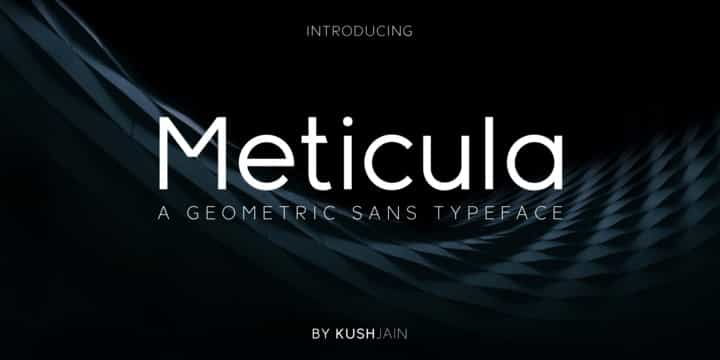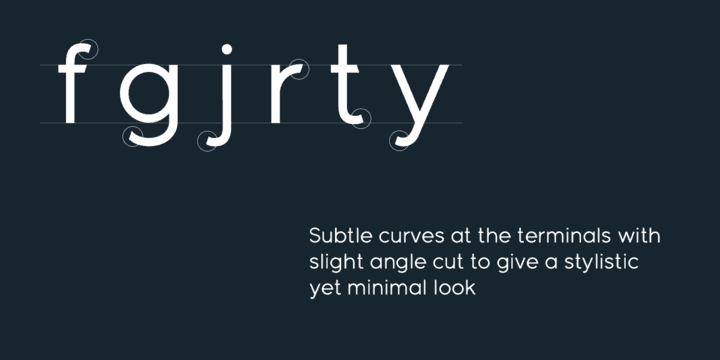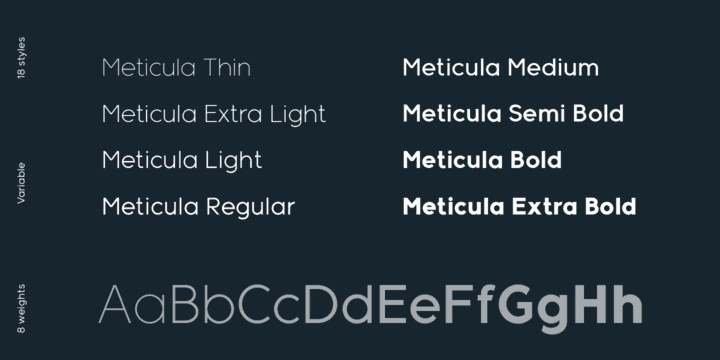
Discover Meticula Font Family, part of the Sans Serif collection—a versatile and unique font perfect for adding a personal touch to your projects. Download it for free and enjoy crafting designs with style, from invitations to social media posts. This font is available exclusively for personal use, giving you the freedom to create without limits. Unlock your creativity with Meticula Font Family today!
The sans serif font family has 18 fonts to choose from. If you are looking for the letters with lots of Ligatures and styles to choose from, this family is a perfect choice. In addition, it will be remembered as a fashionable, graceful and powerful event.